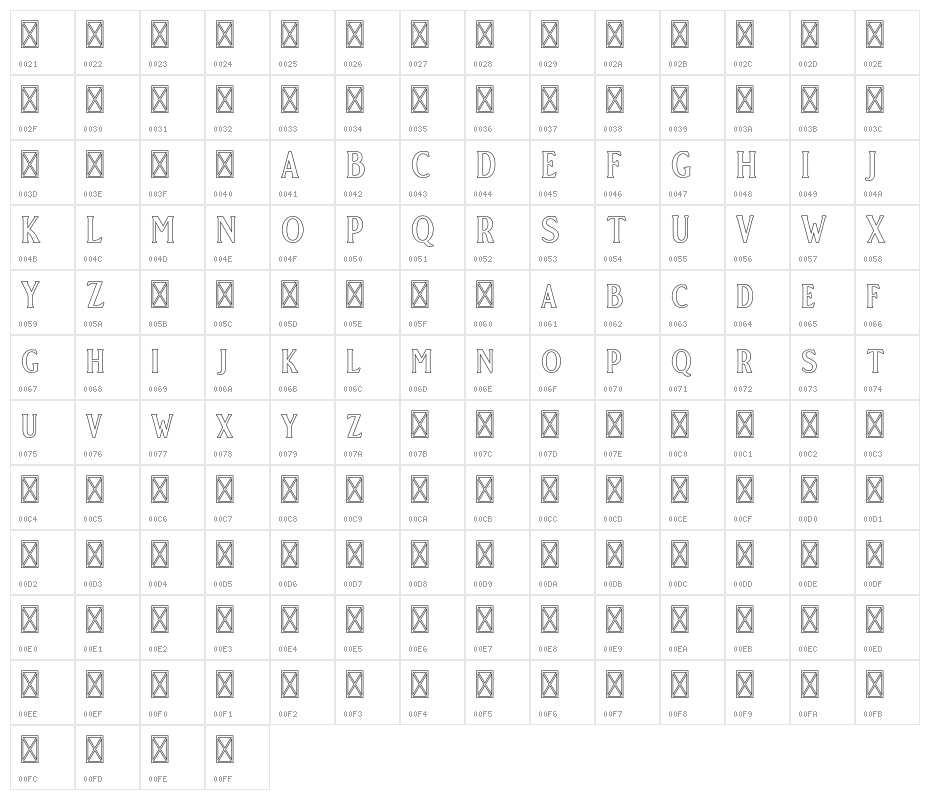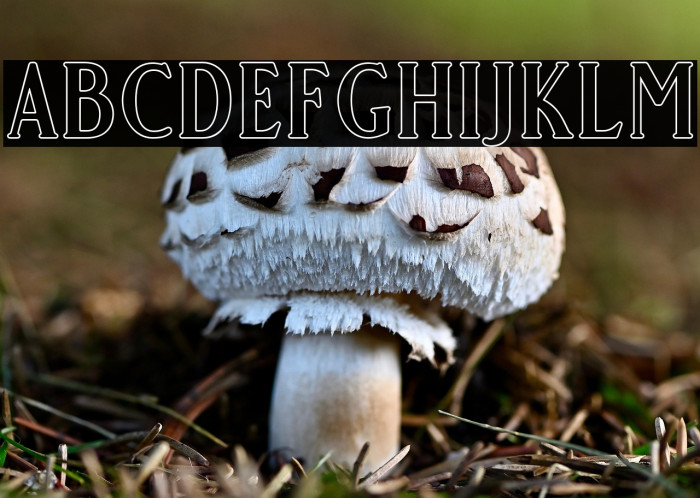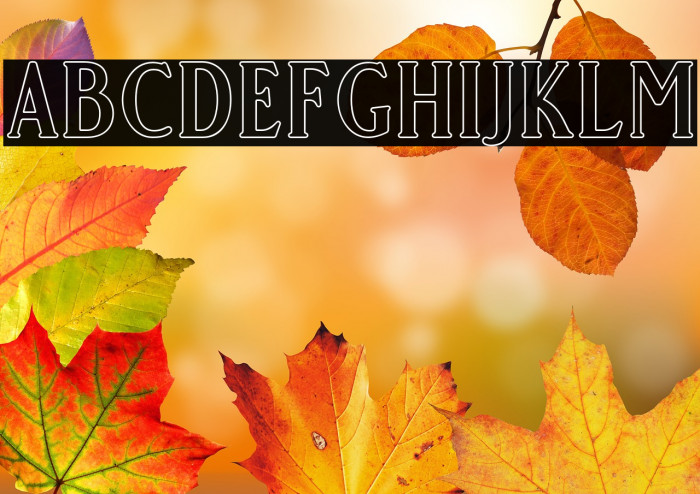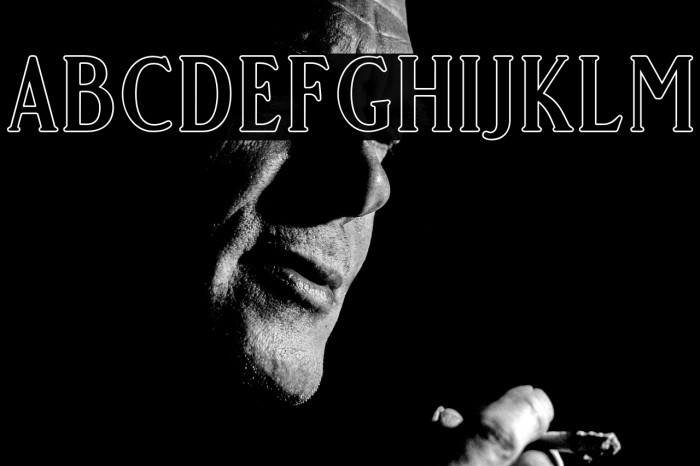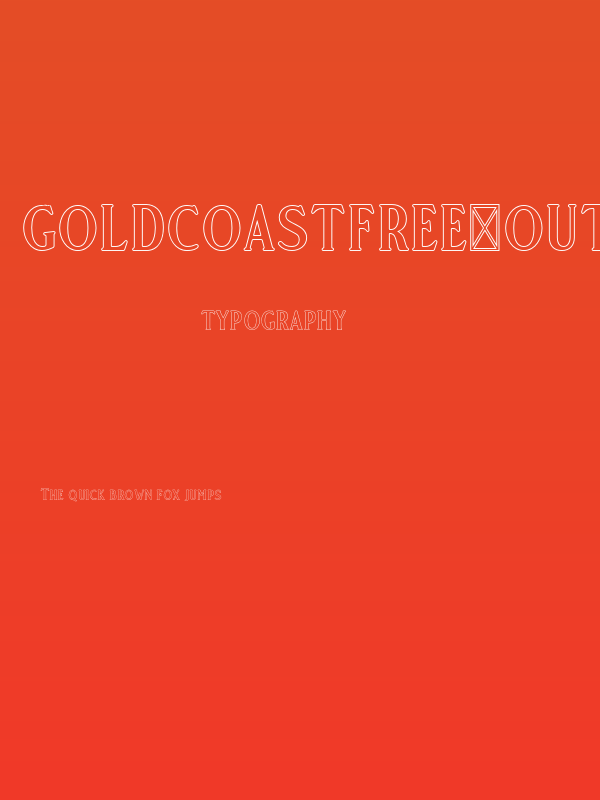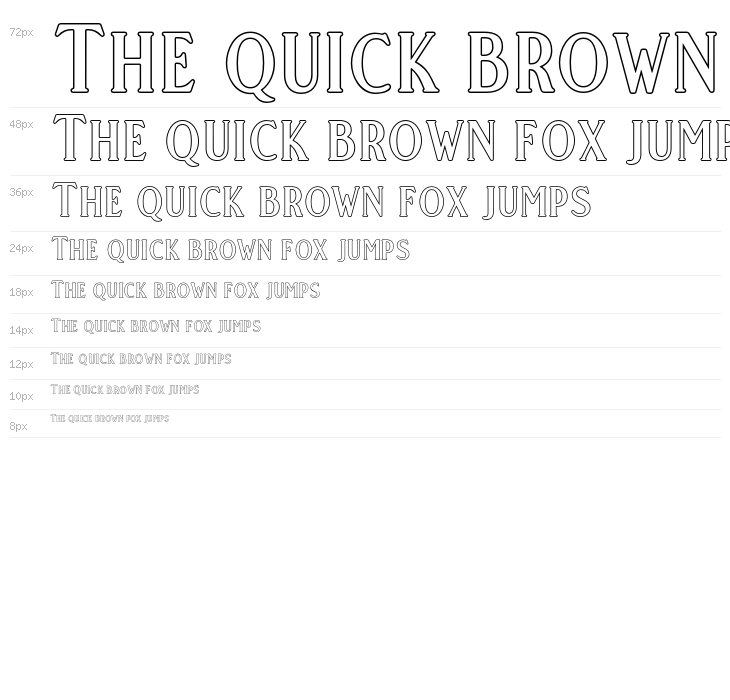
GoldCoastFree-Outline Font
GoldCoastFree-Outline Description
This font features a distinctive outline style, giving it a bold and eye-catching appearance. The uppercase letters are evenly spaced and maintain a consistent height, creating a uniform look. The outline design adds a sense of depth and dimension, making it ideal for display purposes. The geometric shapes within the letters enhance its modern and stylish appeal. This font does not include lowercase letters or numbers, focusing solely on uppercase characters and decorative elements. The overall design is clean and structured, suitable for projects that require a strong visual impact.